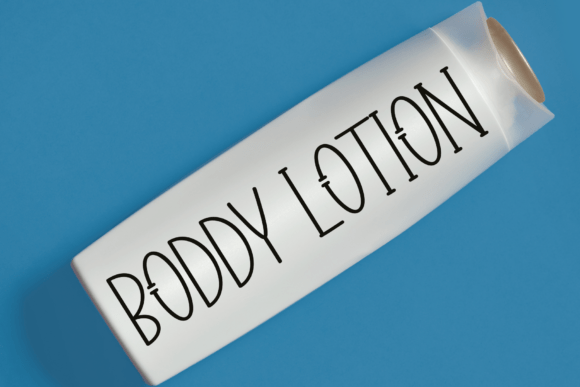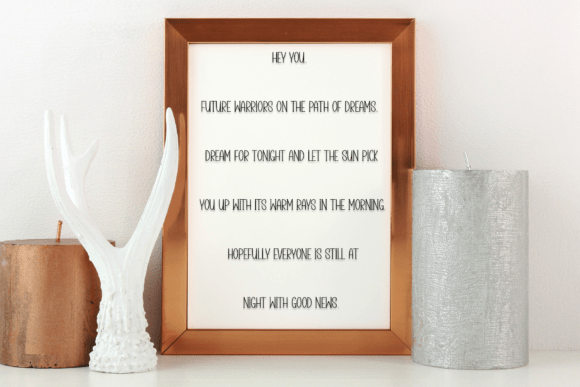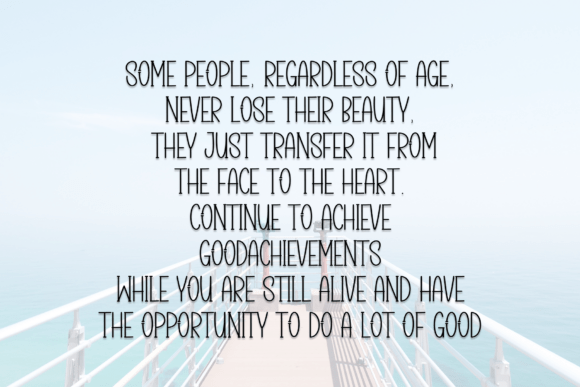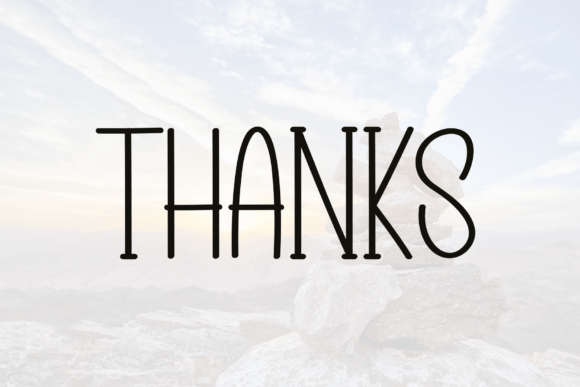
Introducing Angelic Font: The Perfect Blend of Luxury and Casual Elegance
Are you a designer or crafter looking for a font that exudes luxury and elegance while still maintaining a casual and relaxed feel? Look no further than Angelic Font, a beautiful handwritten font that is sure to elevate your designs to the next level. In this article, we’ll take a closer look at the features and benefits of Angelic Font, and explore how it can be used to create stunning branding, logos, wedding supplies, greeting cards, fashion lookbooks, and marketing promotions.
What is Angelic Font?
Angelic Font is a handwritten font that looks like it was drawn with a marker. Its relaxed and sporty feel makes it perfect for designs that require a touch of elegance and sophistication. The font’s unique, marker-drawn aesthetic gives it a distinctive look that sets it apart from more traditional fonts.
Key Features of Angelic Font
- Handwritten with a marker feel: Angelic Font has a unique, handwritten look that gives it a personal and approachable feel.
- Relaxed and sporty vibe: The font’s casual, laid-back aesthetic makes it perfect for designs that require a relaxed and sporty feel.
- Luxurious and elegant: Despite its casual feel, Angelic Font still exudes luxury and elegance, making it perfect for high-end designs.
- Versatile: Angelic Font can be used for a wide range of design applications, from branding and logos to wedding supplies and greeting cards.
Uses for Angelic Font
Angelic Font is an incredibly versatile font that can be used for a wide range of design applications. Here are some ideas to get you started:
- Branding and logos: Use Angelic Font to create a unique and memorable brand identity that stands out from the crowd.
- Wedding supplies: Add a touch of elegance and sophistication to your wedding designs, from invitations to stationery.
- Greeting cards: Create beautiful, heartfelt greeting cards that are sure to impress.
- Fashion lookbooks: Use Angelic Font to add a touch of luxury and elegance to your fashion designs and lookbooks.
- Marketing promotions: Elevate your marketing materials with a font that exudes sophistication and elegance.
Benefits of Using Angelic Font
So why choose Angelic Font for your designs? Here are just a few benefits of using this beautiful font:
- Unique and distinctive look: Angelic Font’s marker-drawn aesthetic gives it a unique and distinctive look that sets it apart from more traditional fonts.
- Easy to read: Despite its handwritten feel, Angelic Font is easy to read and understand, making it perfect for designs that require a clear and concise message.
- Customizable: Angelic Font can be customized to fit your design needs, from adjusting the font size and style to adding your own unique touches.
- Time-saving: With Angelic Font, you can create professional-looking designs in no time, saving you time and effort.
Tips for Using Angelic Font
Here are a few tips for getting the most out of Angelic Font:
- Use it sparingly: Angelic Font is best used sparingly, as a accent font to add a touch of elegance and sophistication to your designs.
- Pair it with other fonts: Experiment with pairing Angelic Font with other fonts to create a unique and visually appealing design.
- Adjust the font size and style: Customize Angelic Font to fit your design needs by adjusting the font size and style.
Angelic Font is a beautiful and versatile font that is perfect for designers and crafters looking to add a touch of luxury and elegance to their designs. With its unique, marker-drawn aesthetic and relaxed and sporty feel, Angelic Font is sure to elevate your designs to the next level. Whether you’re creating branding and logos, wedding supplies, greeting cards, fashion lookbooks, or marketing promotions, Angelic Font is the perfect choice.